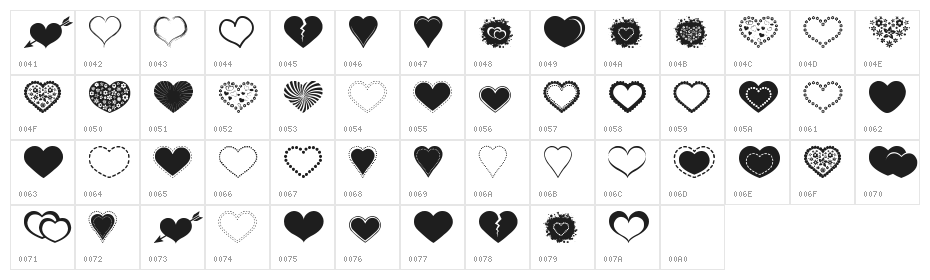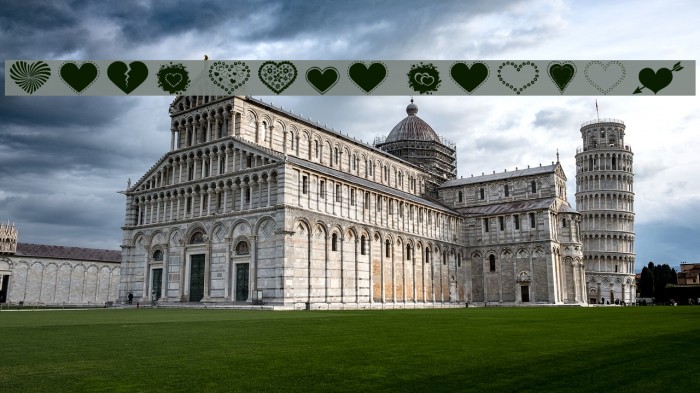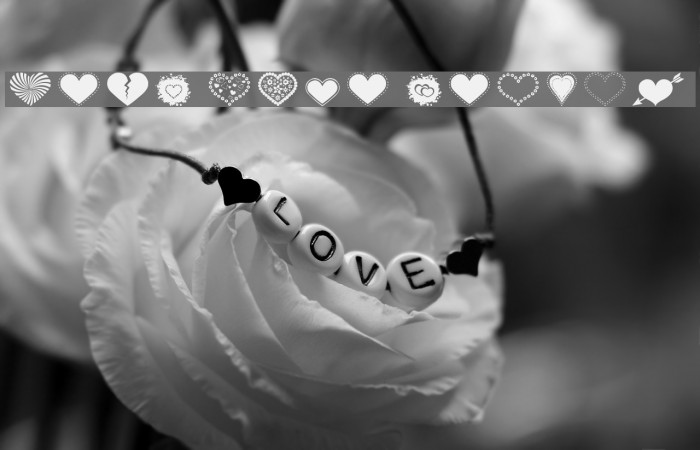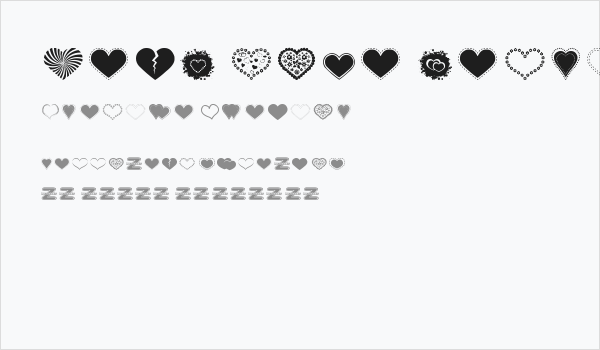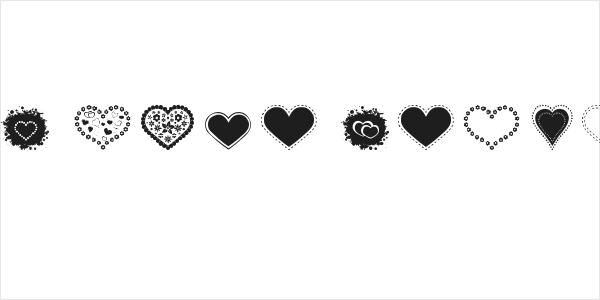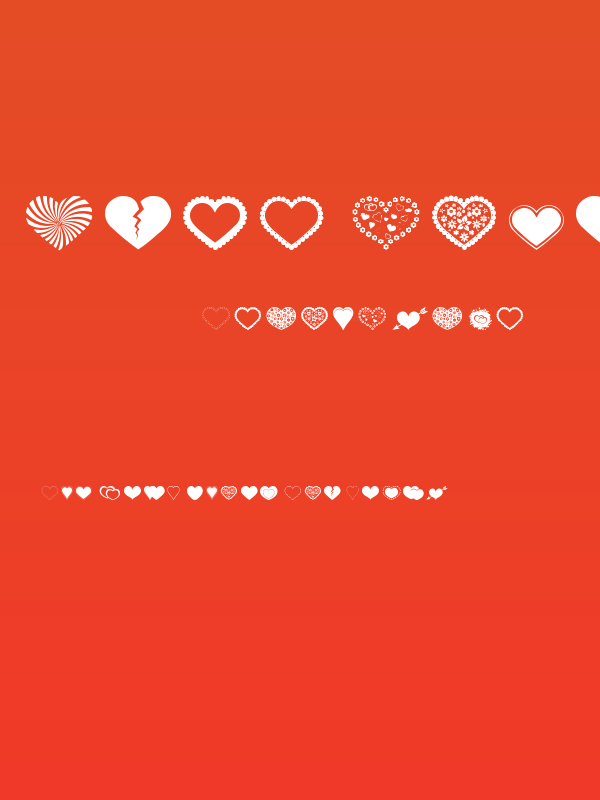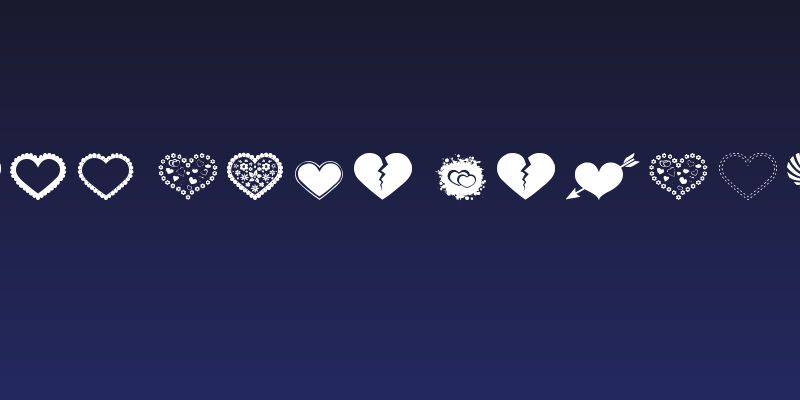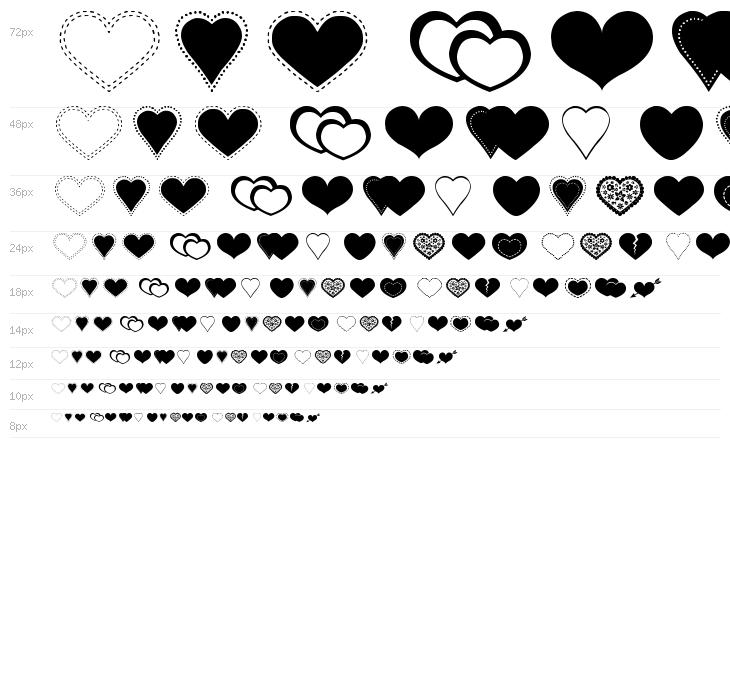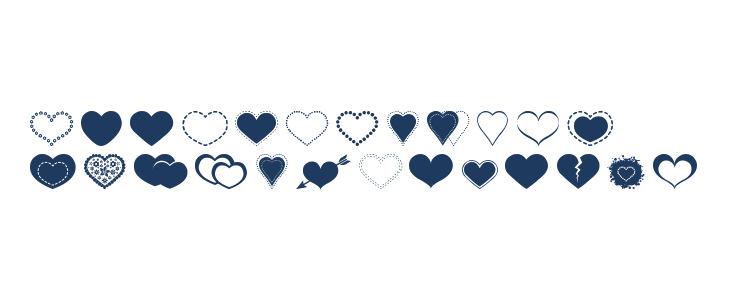
Sexy Love Hearts 2 Font
Sexy Love Hearts 2 Description
A decorative dingbat set featuring a wide variety of heart shapes and motifs, including arrows, patterns, outlines, and filled designs, along with a bold 'Z DESIGNS' logo element. The glyphs are playful and ornamental, focusing on love and romance themes.
| Overall Style | Decorative, Playful, Romantic |
| Use Case | Icons, Borders, Decorative accents |
| Proposed Projects | Valentine's Day cards, romantic invitations, scrapbooking, decorative borders, playful branding, social media graphics. |